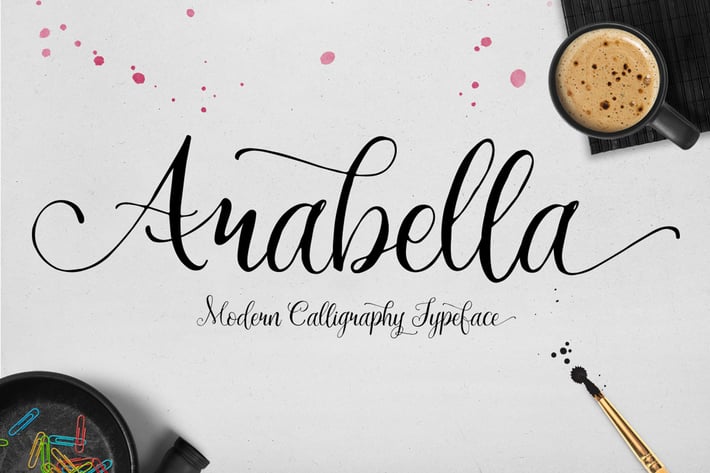
Arabella Font Script
Arabella Font Script, this font was created to help you design a brand of your own or your client, and you also can use it for designing all of the graphics stuff such as a badge, sign, packaging, headline, T-shirt/apparel, Poster, etc.
Including tons of glyphs, initial and terminal letters, alternates, ligatures, and multiple language support.